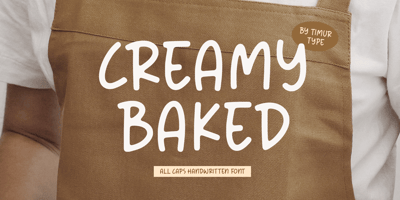
Creamy Baked
Creamy Baked font
Creamy Baked Font Family was designed by Wara Sigit Tri Pamungkas and published by Timurtype. Creamy Baked contains 1 styles and family package options. Introducing by Timur typeProudly Present, Creamy Baked A Handwritten FontCreamy Baked is perfect for product packaging, branding project, megazine, social media, wedding, or just used to express words above the background.Creamy Baked also multilingual support.Enjoy the font.Thank you!